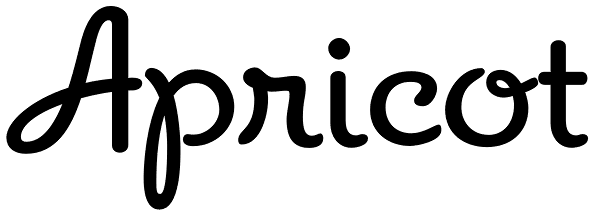
Apricot
A. R. Bosco made Romany for ATF in 1934, when there was much demand for script types in advertising and publishing. It was the high times of Speedball lettering, and a casual script in that fashion was naturally very welcome. It became an instant...